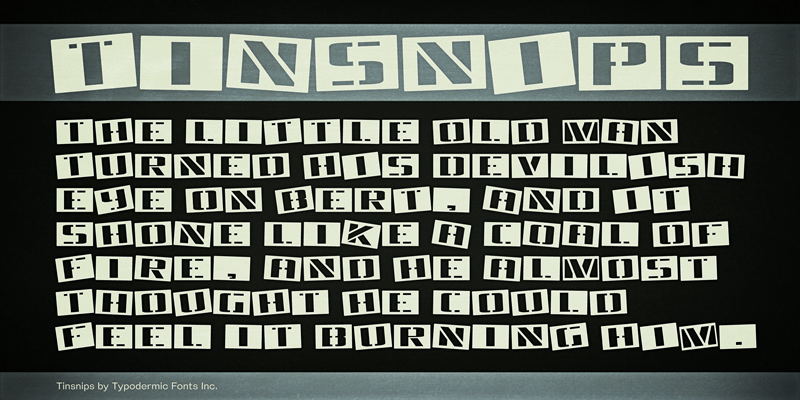
Preview and download Tinsnips Font. Created by Typodermic Fonts in Fancy Stencil, Army styles with 100% Free license.
Tinsnips is a careening, derp-de-doop pack of metal stencil cards. This font includes a license that allows free commercial use: sometimes referred to as a desktop license. This allows you to install the font on a computer and use it to create posters, web graphics, game graphics, t-shirts, videos, signs, logos and more. Read the license agreement for details. If you'd like to embed this font in an app, ebook, on the web or anything that's not covered by the desktop license agreement, visit the link below. You'll find distributors who offer different types of licenses or you can contact me for help. http://typodermicfonts.com/tinsnips/ |